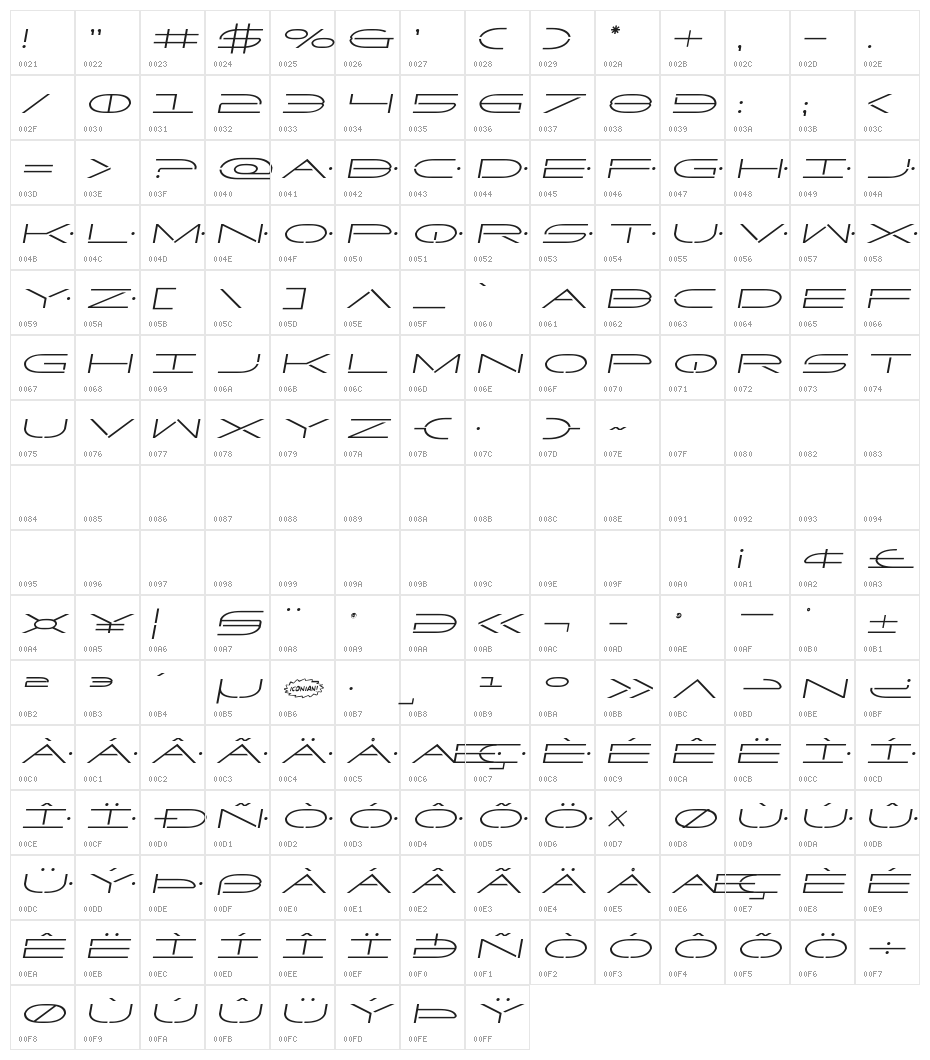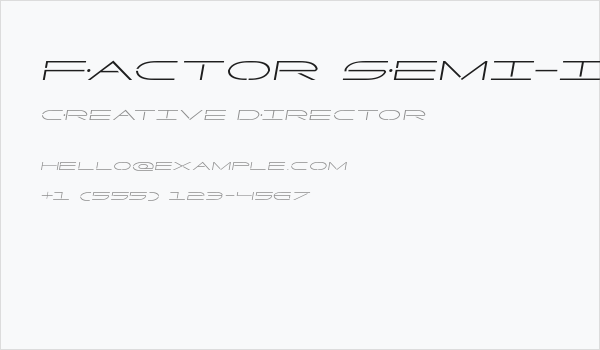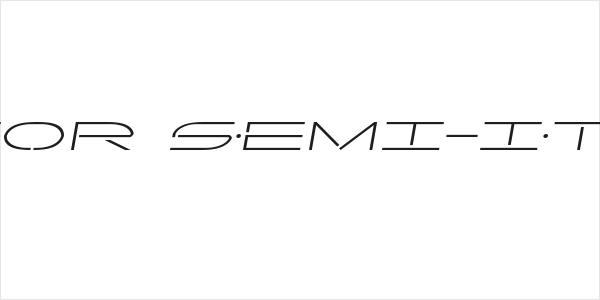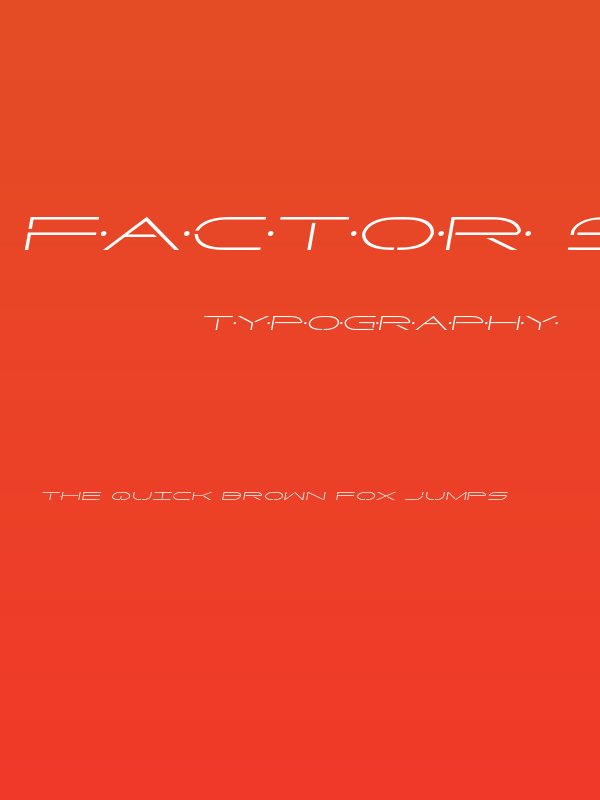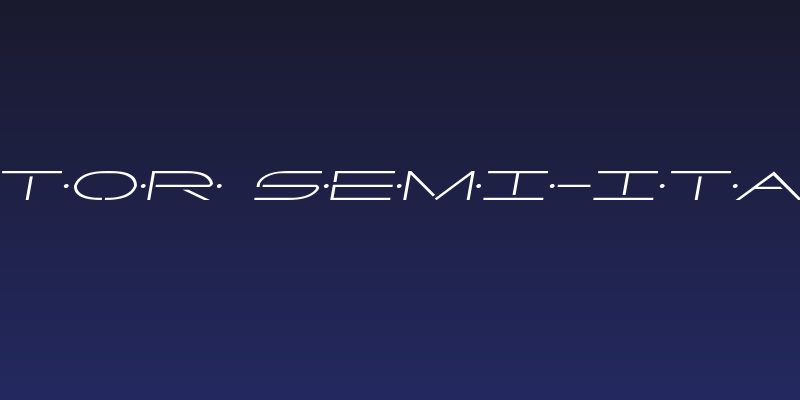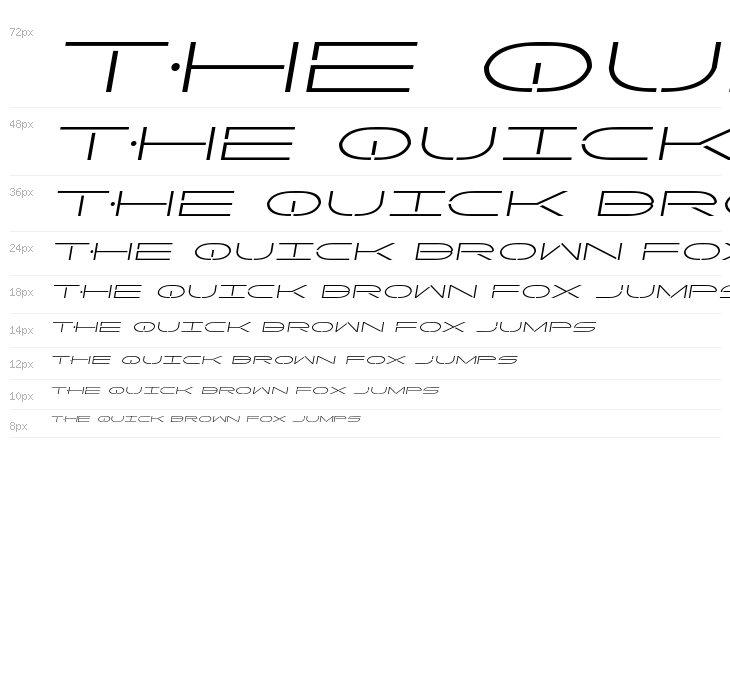
Factor Semi-Italic Font
Factor Semi-Italic Description
This font features a futuristic and geometric design with a semi-italic slant, giving it a dynamic and modern appearance. The characters are constructed with clean, straight lines and sharp angles, creating a sense of precision and technicality. The uppercase and lowercase letters maintain a consistent style, with some characters incorporating unique cuts and breaks that add to the font's distinctiveness. The numerals and special characters follow the same design principles, ensuring uniformity across all glyphs. This font's sleek and contemporary look makes it suitable for projects that require a modern and innovative touch.
| Overall Style | Futuristic, Geometric |
| Proposed Projects | Ideal for technology branding, sci-fi themed designs, modern advertising, and innovative product packaging. |